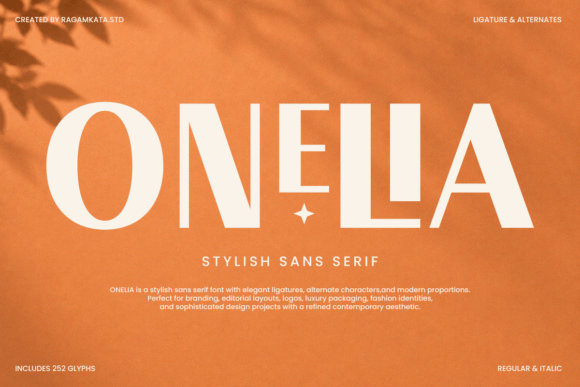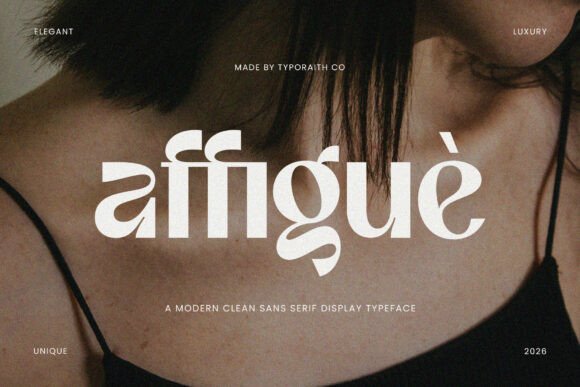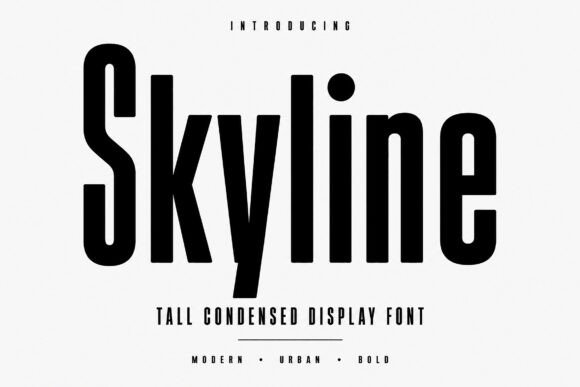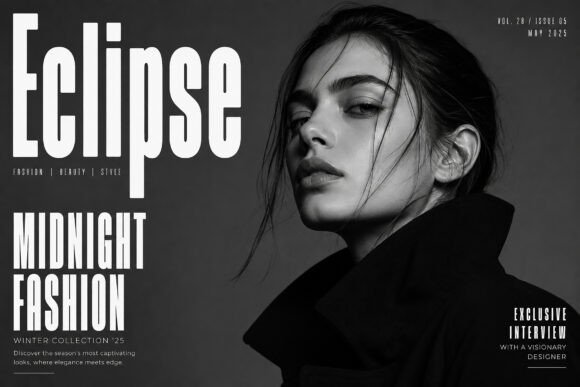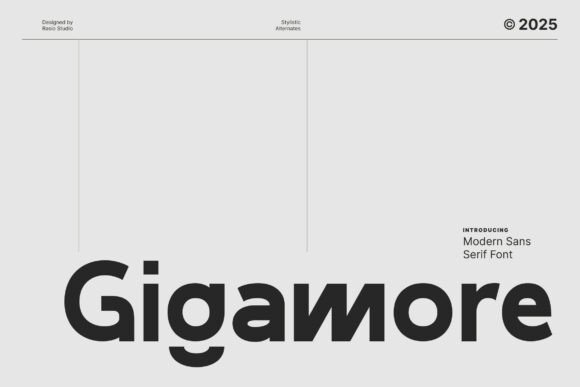
22 Best Fonts for Clothing Brand Logos (2026)
The best fonts for clothing brand logos have a hard job: they must look right on a tiny woven tag, a phone screen and a shop window all at once. A logo that sparkles on a mockup can fall apart once it is stitched at thumbnail size, so the right fonts for clothing brand logos are chosen for behaviour as much as beauty.
This is a buyer’s guide, so these 22 fonts are sorted by the job they do for a label, legibility on tags, luxury wordmarks, script signatures and bold streetwear impact, with a short decision checklist at the end.
How to choose fonts for clothing brand logos
Before the picks, here is what separates strong fonts for clothing brand logos from pretty ones that fail on a label. Judge every font below against these four points.
- Tiny-size legibility: the logo must read when woven or printed small on a neck tag.
- Stitch and print friendly: very thin strokes break up in embroidery and on fabric.
- One clear voice: a single statement font plus a quiet sans beats a crowd of fonts.
- Reverses cleanly: set it white on black; good logo fonts hold their shape either way.
Clean fonts that read on tiny woven tags
Start here. These clean sans and condensed fonts for clothing brand logos stay sharp at the small sizes a neck tag or hang tag demands.
Onelia
Onelia is a stylish sans built around elegance and modern luxury, and among clean fonts for clothing brand logos it makes a confident wordmark that still reads at tag size. The refined letterforms feel premium without ornament, so a label looks designed rather than plain. Use it for the brand name and the same family for the size text. The even forms reverse cleanly on dark fabric. For a modern clothing label that wants a sleek sans logo with a touch of class, Onelia is a strong font worth a look.
Affigue
Affigue is a modern clean sans display face with an elegant, luxurious character. As clothing logo fonts go it bridges a clean sans and a display face, giving a wordmark a little extra polish while staying legible small. Use it for the name and a plain sans for the care label. The crisp forms hold up in print and reverse well. For a fashion-led clothing brand that wants a clean logo with a designer’s edge, Affigue is a sharp display sans worth trying on a tag.
Skyline
Skyline is a tall, condensed display font, and among fonts for clothing brand logos it solves a real problem: a long brand name that has to fit a slim woven tag. The narrow letters stack neatly and stay bold enough to read small. Use it for the wordmark and a clean sans for the size and care text. The strong forms hold up in print and stitching. For a label with a longer name that needs to fit a tight tag, Skyline is one of the most practical fonts here.
Eclipse
Eclipse is a bold, modern condensed display font with clean lines. Like Skyline it earns its place among clothing logo fonts by packing a name into a narrow space without thinning out. The heavier weight reads clearly on a tag and a tee print alike. Use it large for the logo and keep supporting fonts plain. The clean condensed build keeps it modern rather than retro. For a contemporary clothing label that wants a strong, space-saving wordmark, Eclipse is a dependable condensed font worth a look.
Gigamore
Gigamore is a modern sans with bold proportions, smooth curves and distinctive detailing. As clean fonts for clothing brand logos go, it is a confident wordmark that still reads at small sizes, which is exactly what a tag needs. The subtle character keeps it from feeling generic. Use it for the name and the same family for the size labels so the brand stays in one voice. For a modern clothing label that wants a clean sans logo with a little personality, Gigamore is a strong font worth trying.
Shampo
Shampo is a bold, modern tall condensed display font built for visual impact. Among condensed fonts for clothing brand logos it is the loudest, stacking a name tall and tight with real presence. That suits a sporty or streetwear-leaning label as much as a tight tag. Use it large for the wordmark and a clean sans for detail. The bold condensed forms read well from a distance and survive print. For a clothing brand that wants a strong, attention-grabbing condensed logo, Shampo is a punchy font worth a look.
Luxury serif fonts for clothing brand logos
For an upscale label, a serif reads expensive. These luxury serif fonts for clothing brand logos give a wordmark contrast and a high-fashion air.